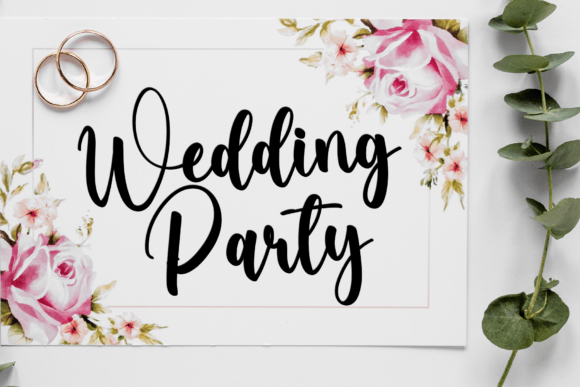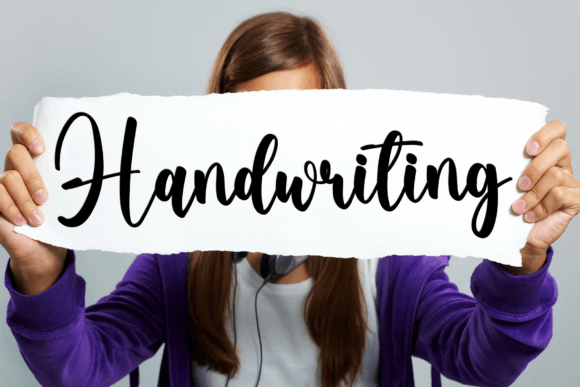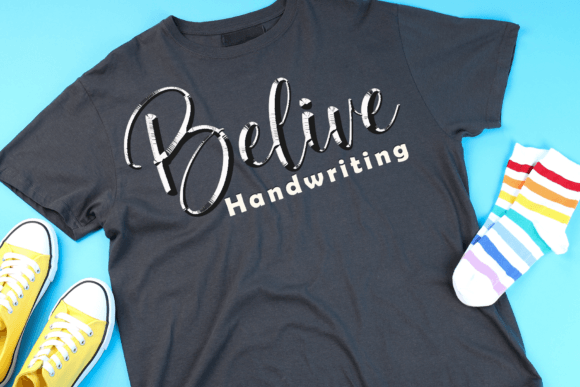
Belive Font
Belive is bouncy and bold script calligraphy font with an elegant and modern touch. It is perfect for use in projects for weddings, invitations, stickers, sublimation, cards, birthday, t-shirt design, farmhouse design, and others.